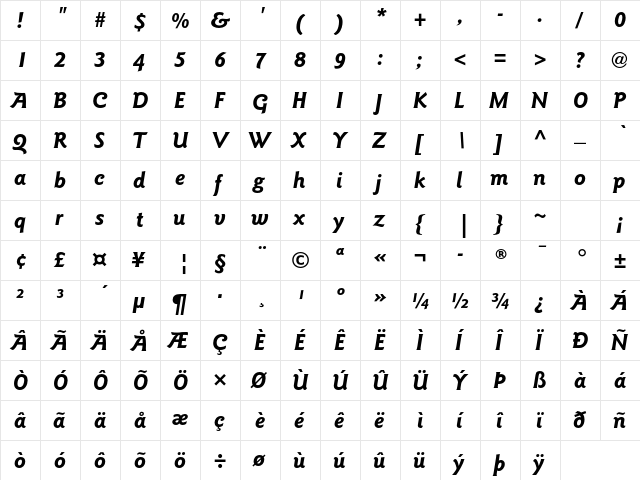
ITC Goudy Sans Std Bold Italic Font Preview
ITC Goudy Sans Std Bold Italic
ITC Goudy Sans Std Bold Italic Font Details
| Designer | Frederic W. Goudy |
Design Context for ITC Goudy Sans Std Typeface
ITC Goudy Sans Std is a composed and adaptable typeface that performs quietly and consistently across a wide range of design contexts. The slanted form adds forward momentum and visual energy. Its bold stroke weight gives it real presence on the page.
Pro Tip: Try ITC Goudy Sans Std for annotation and caption copy alongside an upright companion — the contrast in angle creates a dynamic but ordered typographic system.